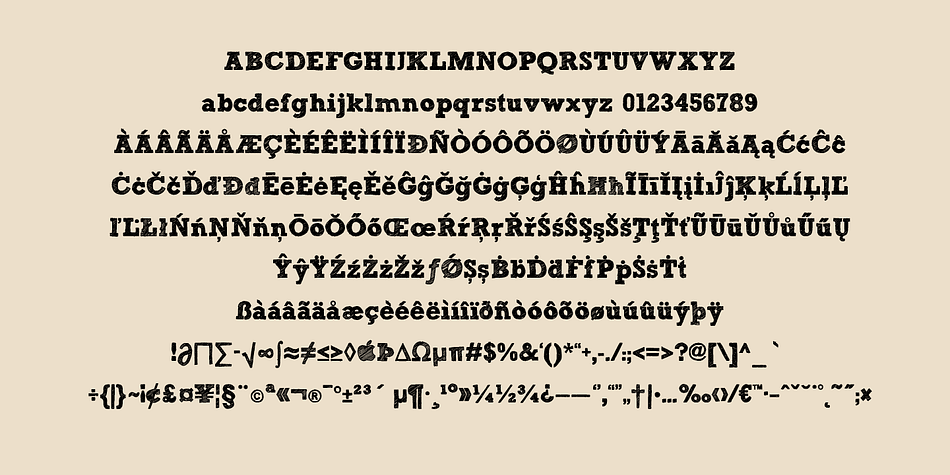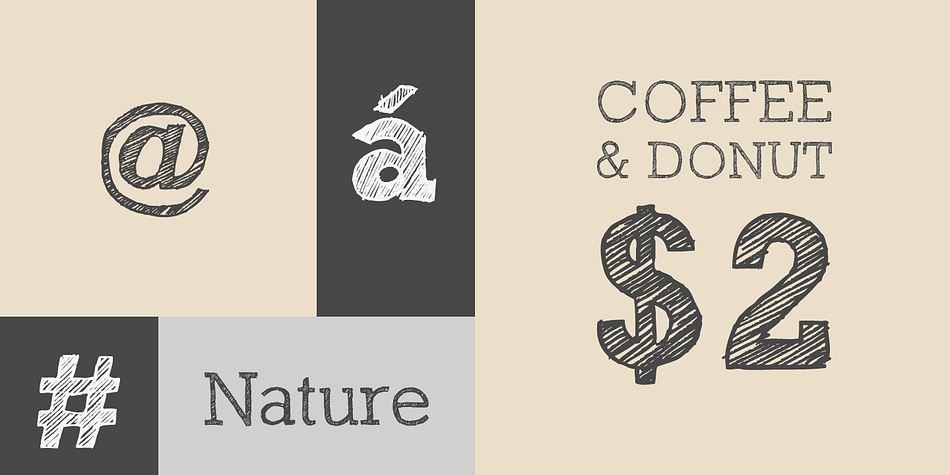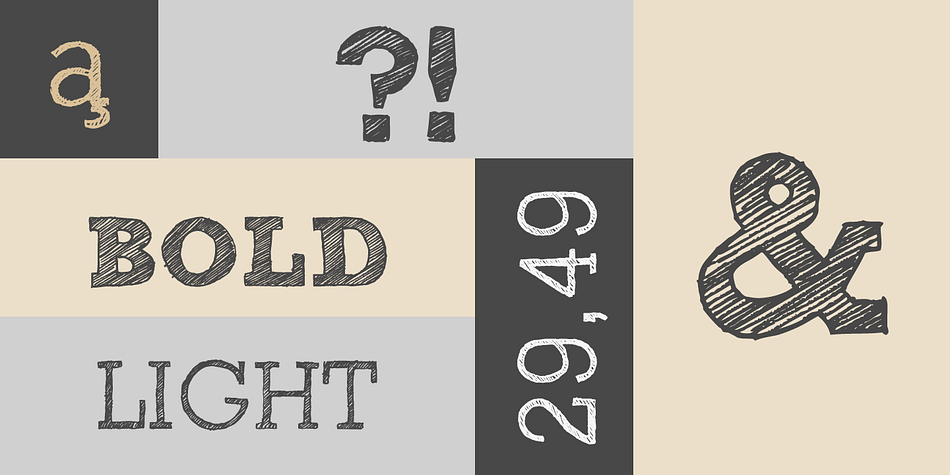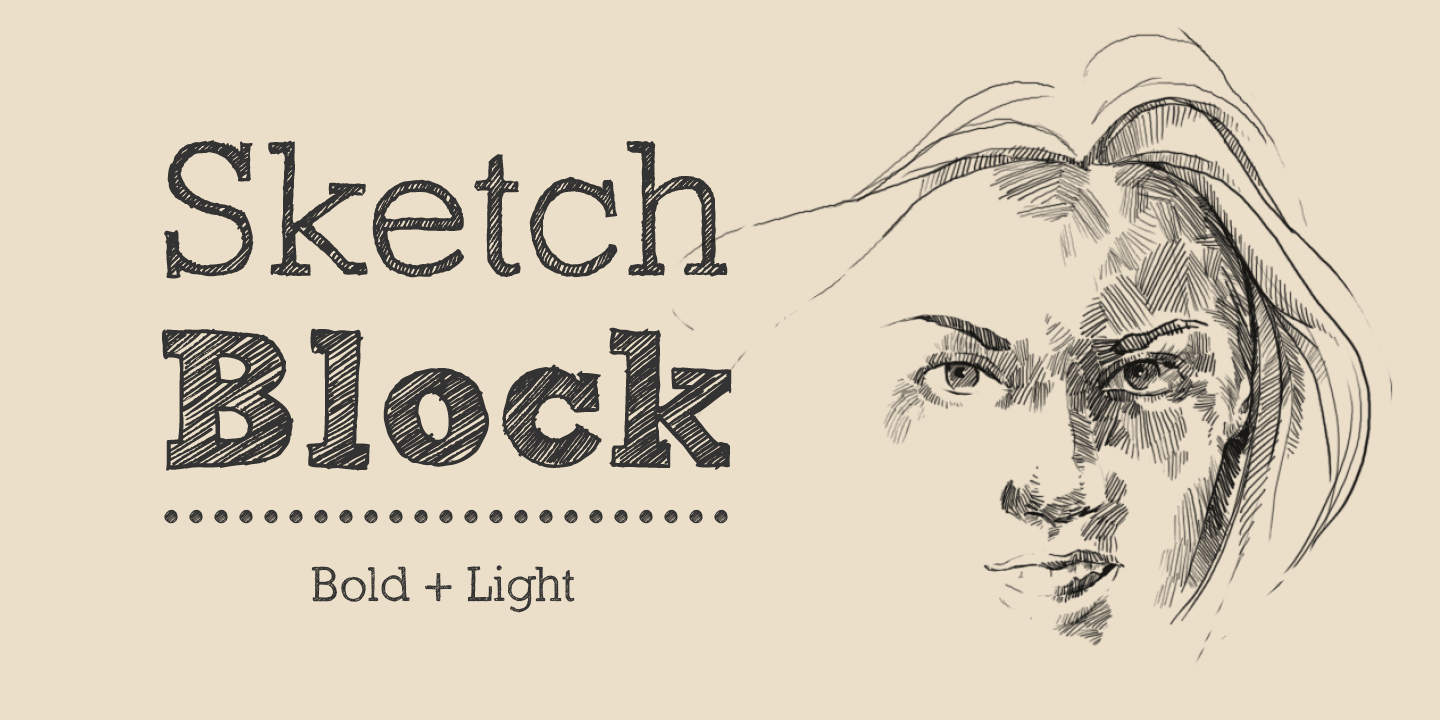
Sketch Block is a hand display font family. This typeface has two styles and was published by Artill Typs.
Sketch Block is a hand-sketched headline font. The family contains a light and bold weight; both complement each other perfectly. The mundane, constructed basic forms of the egyptienne typeface get their charming touch by the handmade hatching. Impressions of dominance and warmth are equally created.
Created solely by me from sketch by hand and then digitized, Sketch Block makes a perfect font to create the hand-made character look, or to supplement illustrations with typography.